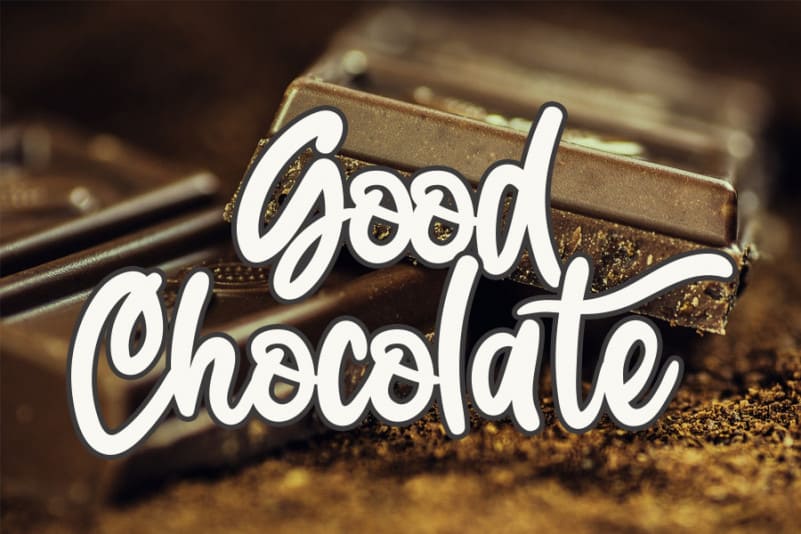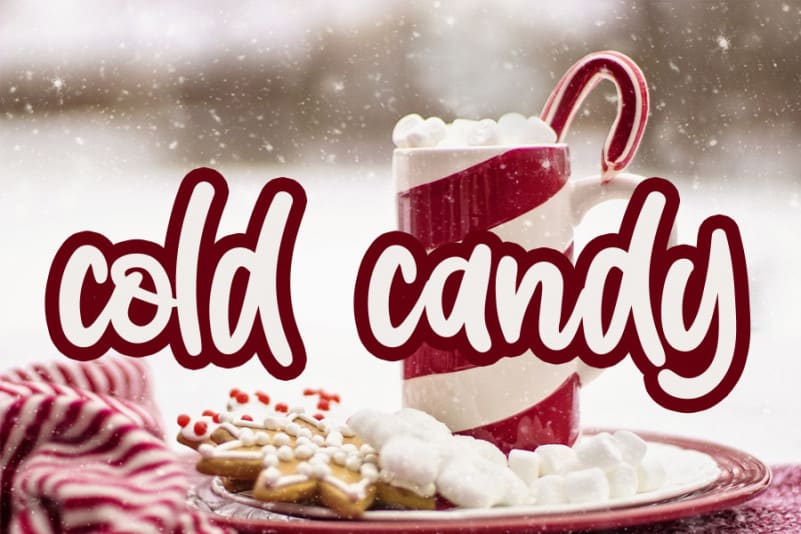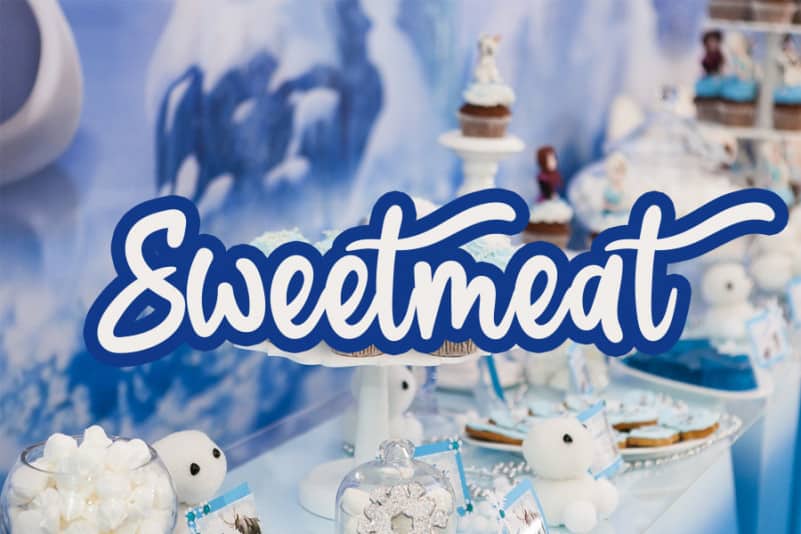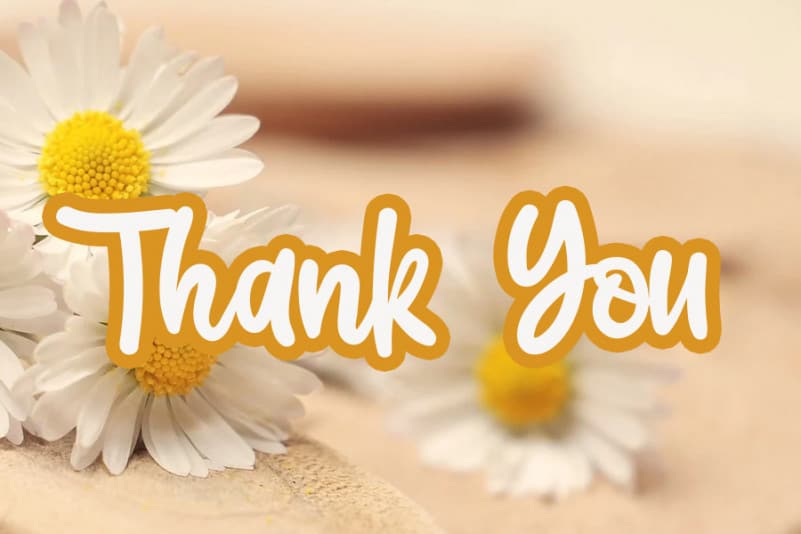
Candy Valentine Display Font
Candy Valentine Display Font is a cute handwritten font, carefully crafted to become a true favorite. It maintains a classy calligraphic influence while feeling contemporary and fresh. This versatility will attract a variety of crafty ideas, from letterheads and titles, to writing tools.
Latest letters that can be used for various products, invitations, wall hangings, weddings, and more.